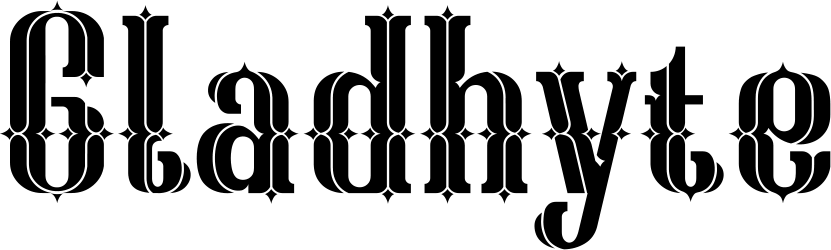
Gladhyte Font
Not every retro font is unique nowadays, but this one? It can make an eye-catching design! This font is called Gladhyte and its characters have a retro fence and knots type of design. You can use this masculine tattoo font on product packaging, retro movie posters, classic novels, retro party flyers, or any informal retro literature.